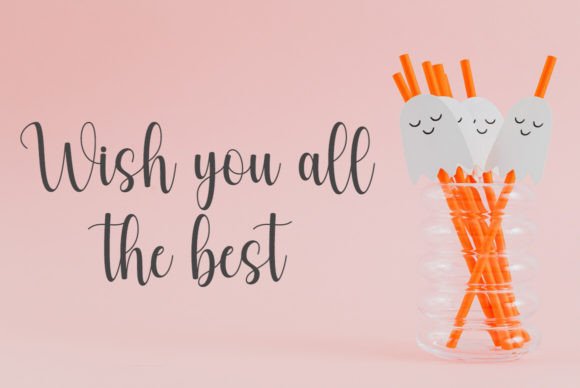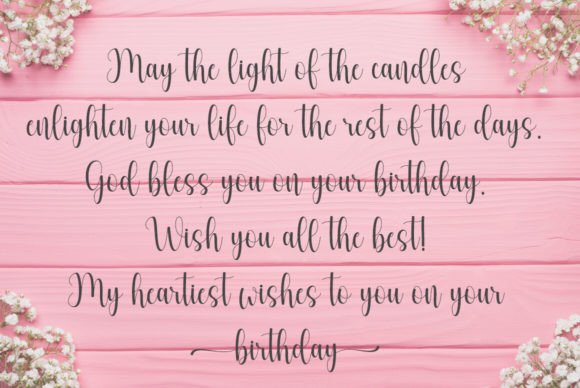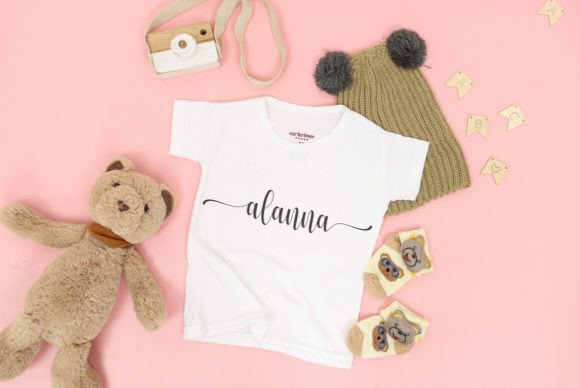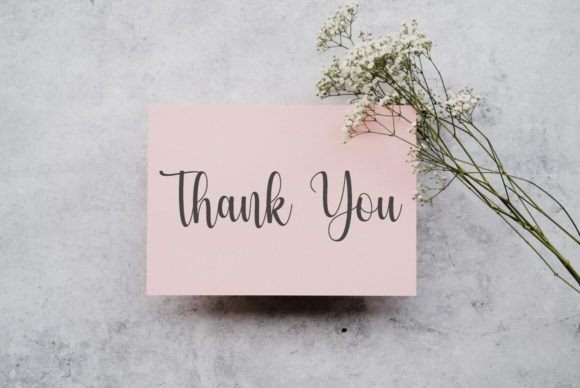
Introducing Birthday Font: Elevate Your Designs with Elegance and Sophistication
Are you a designer or crafter looking for a font that exudes elegance and sophistication? Look no further than the Birthday Font, a stylish and incredibly elegant handwritten font that is sure to take your designs to the next level. Whether you’re working on wedding invitations, thank you cards, quotes, greeting cards, logos, business cards, or any other design that needs a handwritten touch, this font is the perfect choice.
What Makes Birthday Font So Special?
So, what sets the Birthday Font apart from other fonts on the market? For starters, its elegant and refined handwritten style is perfect for a wide range of design projects. The font’s flowing lines and delicate curves give it a sophisticated and luxurious feel that is sure to impress. Additionally, the Birthday Font is PUA encoded, which means that you can access all of the glyphs and swashes with ease. This makes it incredibly easy to customize your designs and add your own personal touch.
As a designer or crafter, you know how important it is to have a font that is versatile and easy to use. The Birthday Font is perfect for a wide range of projects, including:
• Wedding invitations: Add a touch of elegance and sophistication to your wedding invitations with this beautiful font.
• Thank you cards: Show your appreciation with a personalized thank you card featuring the Birthday Font.
• Quotes: Add a touch of whimsy and elegance to your quotes with this beautiful handwritten font.
• Greeting cards: Create beautiful and unique greeting cards for any occasion with the Birthday Font.
• Logos: Use this font to create a custom logo for your business or brand.
• Business cards: Stand out from the crowd with a business card featuring the elegant and sophisticated Birthday Font.
Benefits of Using the Birthday Font
So, why should you choose the Birthday Font for your next design project? Here are just a few benefits of using this amazing font:
• Elegant and sophisticated: The Birthday Font is the perfect choice for designers and crafters who want to add a touch of elegance and sophistication to their designs.
• Versatile: This font is perfect for a wide range of design projects, from wedding invitations to business cards.
• Customizable: With the Birthday Font, you can easily customize your designs and add your own personal touch.
Tips for Using the Birthday Font
Here are a few tips for getting the most out of the Birthday Font:
• Experiment with different sizes: The Birthday Font looks great in a variety of sizes, so don’t be afraid to experiment and find the perfect size for your design.
• Pair it with other fonts: The Birthday Font pairs well with a variety of other fonts, so try pairing it with a bold font for a striking contrast.
• Use it for headings and titles: The Birthday Font is perfect for headings and titles, where its elegant and sophisticated style can really shine.
In conclusion, the Birthday Font is a stylish and incredibly elegant handwritten font that is perfect for designers and crafters who want to add a touch of sophistication and elegance to their designs. With its versatile style, ease of use, and customizable glyphs and swashes, this font is sure to become a favorite in your design arsenal. So why wait? Download the Birthday Font today and start creating beautiful and unique designs that will impress and delight your clients and customers.